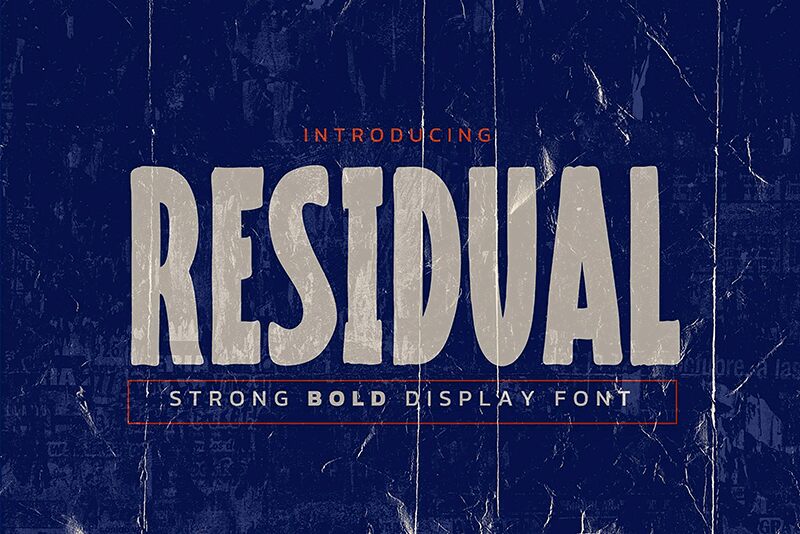
Residual
Residual, crafted by Gassstype, is not just a font-it's a statement. As a bold display typeface, it boasts a modern style infused with dramatic movement that simulates the spontaneity of hurried, casual handwriting. Ideal for an array of creative endeavors, Residual's textured and distinctive character adds authenticity and uniqueness to any project.
Whether it's for eye-catching labels, compelling posters or modern designs that require an organic touch, this font ensures your work stands out with its natural look. Embrace the versatility of Residual for branding, packaging, greeting cards or digital platforms where personality and presence cannot be compromised.
Let your creative voice resonate through every curve and line offered by this extraordinary font.